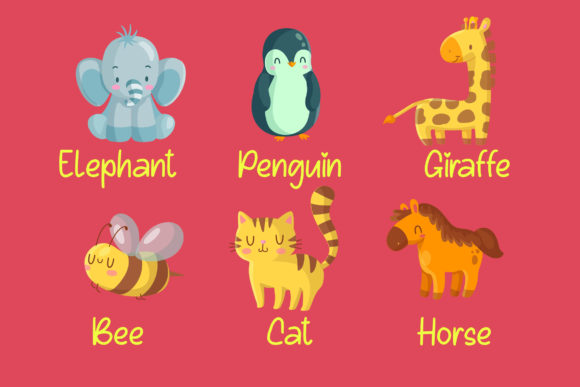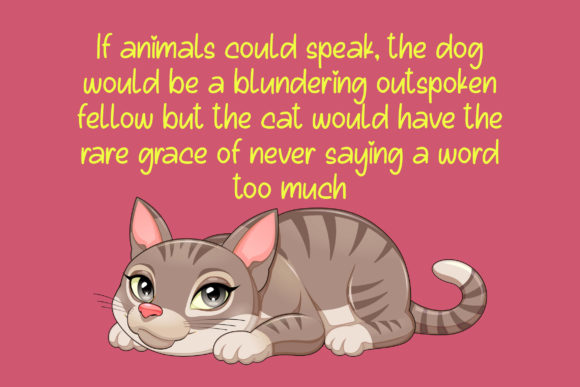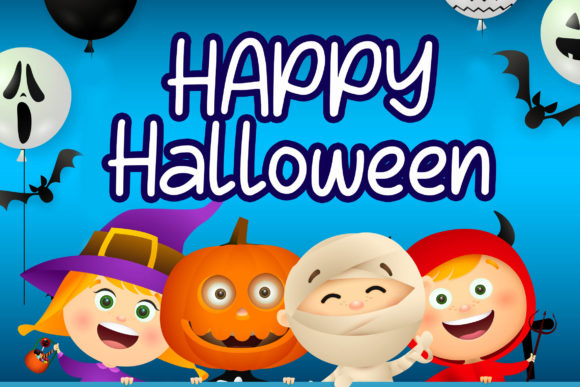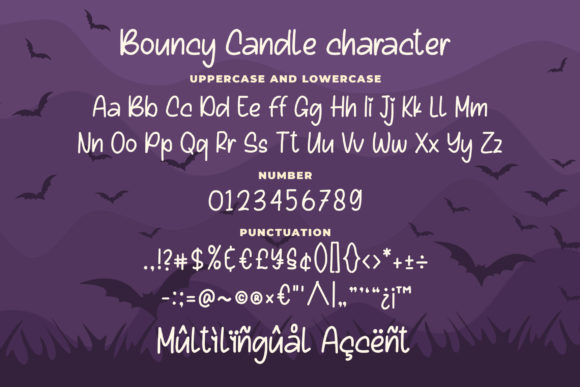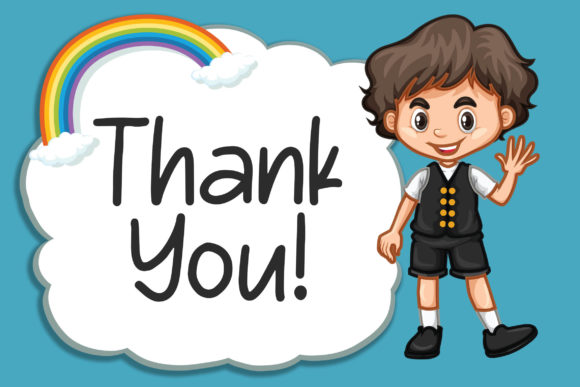
Get Ready to Light Up Your Designs with Bouncy Candle Font
Have you ever been in a creative rut, staring blankly at your screen, and suddenly a spark of inspiration strikes? For me, it was a rainy afternoon, a warm cup of coffee, and a font that seemed to dance on my screen – the Bouncy Candle Font. This playful and imaginative display font has a bouncy monoline that instantly lifts your mood and sparks your creativity.
Bouncy Candle Font is more than just a pretty face; it’s a versatile tool designed to add a modern touch to your designs. Whether you’re a graphic designer, a digital artist, or a typography enthusiast, this font is sure to inspire you. Its unique charm makes it an excellent choice for creating eye-catching headlines, logos, and titles that demand attention. With Bouncy Candle Font, the possibilities are endless, and your designs are sure to shine brighter than ever.
Bouncy Candle Font Key Features
- Font Family: Bouncy Candle Font is a unique, hand-drawn font family that offers a wide range of characters and symbols.
- Character Count: The font family includes over 400 characters, including uppercase and lowercase letters, numbers, and special symbols.
- Unique Characteristics: The font’s distinctive, bouncy feel and hand-drawn style make it perfect for creating eye-catching and playful designs.
Bouncy Candle Font Review
I recently had the chance to work with the Bouncy Candle Font, and I have to say it’s a fun and unique addition to any design project. ✨ The font’s playful and whimsical style makes it perfect for creative and artistic projects, such as children’s books or advertisements for entertainment events. ✨ The font’s flexibility in terms of font sizes and colors also makes it easy to incorporate into various design elements.
However, there are a few limitations to consider. ⚠️ The font may not be suitable for formal or professional projects, as it may come across as too casual or immature. ⚠️ Additionally, the font may not be as readable at smaller font sizes, which could make it difficult to use in certain applications.
Here are a few specific pros and cons I’ve observed:
- ✨ Unique and playful style
- ✨ Flexible font sizes and colors
- ⚠️ May not be suitable for formal or professional projects
- ⚠️ May not be readable at smaller font sizes
Overall, I think the Bouncy Candle Font is a great choice for designers looking to add a touch of whimsy to their projects. With its fun and flexible style, it’s sure to make a statement. Just be mindful of the potential limitations, and you’ll be all set for a successful design project.
Getting the Most Out of Bouncy Candle Font
For best results, use Bouncy Candle Font in conjunction with bold or italic text styles. You can also experiment with different font sizes and colors to create a visually appealing design.
Bouncy Candle Font is ideal for creating playful, whimsical designs, such as invitations, greeting cards, and social media graphics. It’s also great for adding a touch of personality to product labels, packaging, and marketing materials.